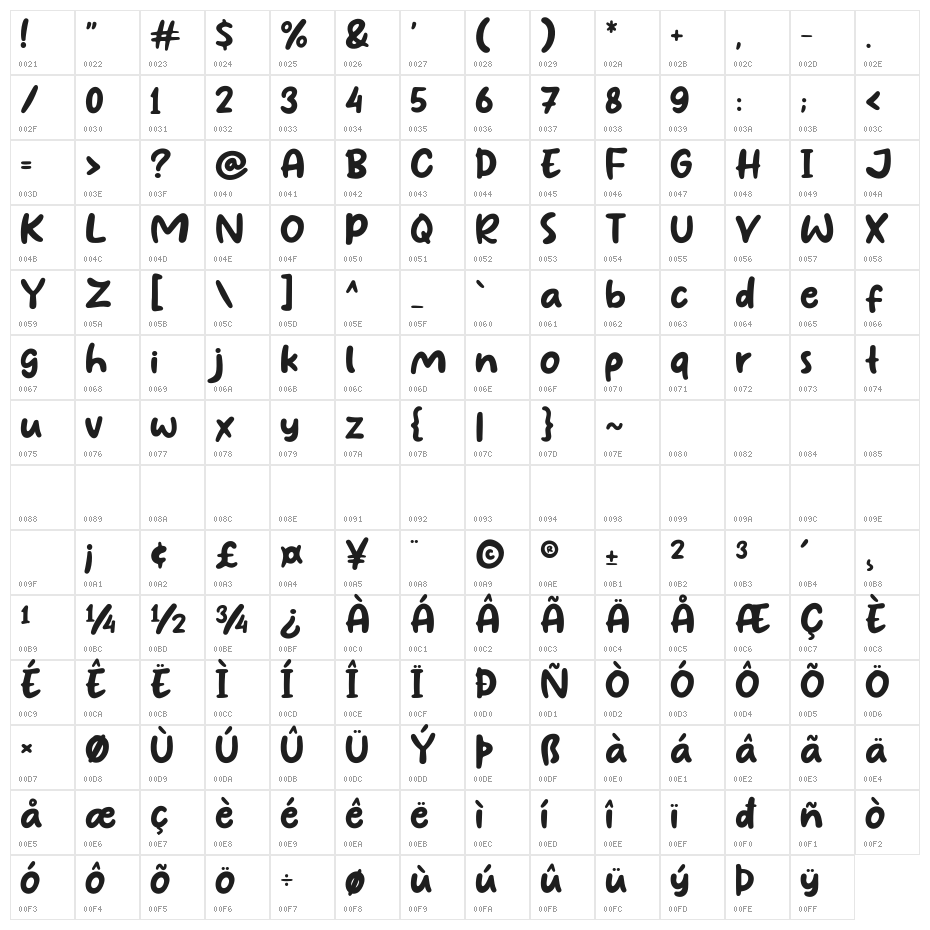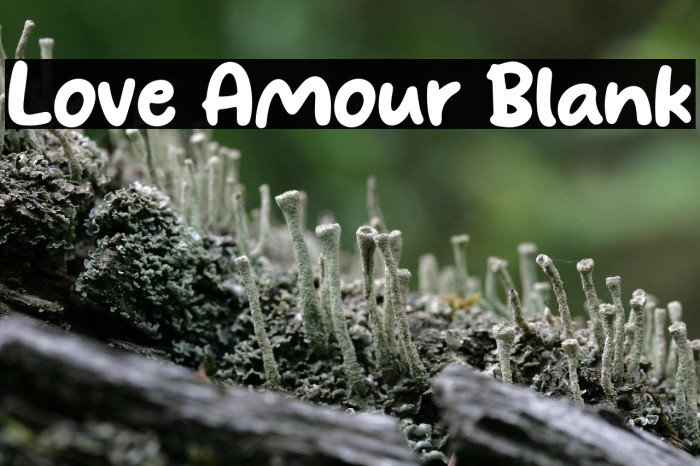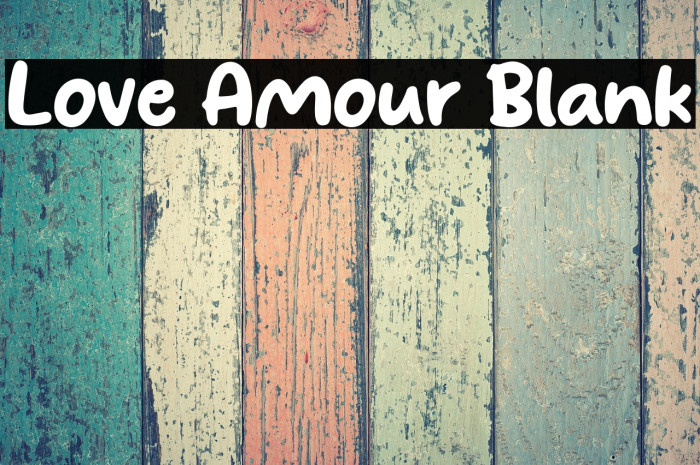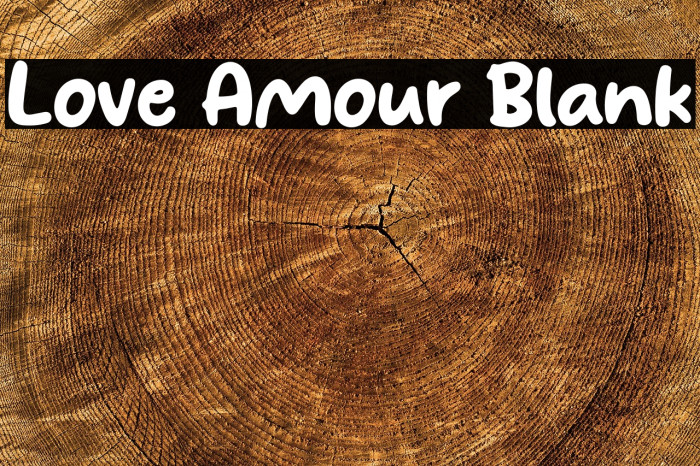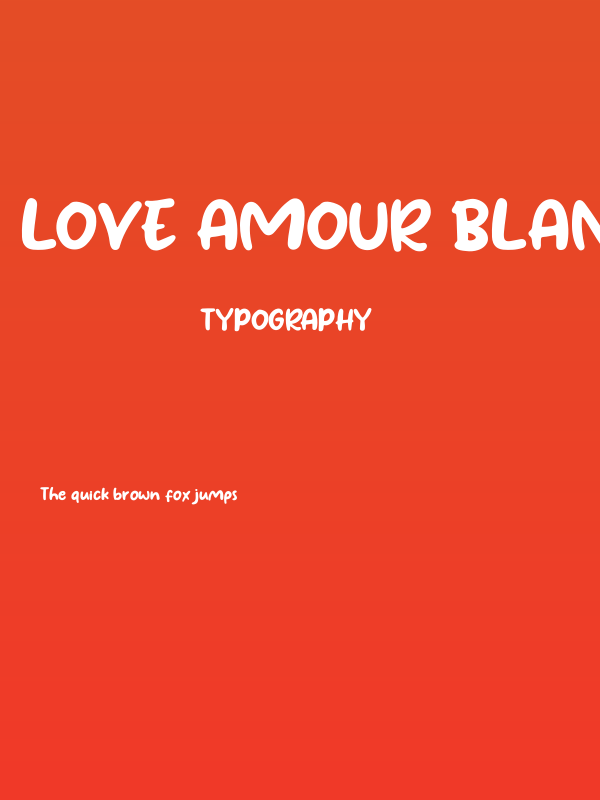
Love Amour Blank Font
Love Amour Blank Description
This playful and bold font features a handwritten style with rounded edges and a casual, friendly appearance. The characters are thick and slightly irregular, giving them a whimsical and approachable feel. The uppercase and lowercase letters maintain a consistent style, with a slight slant that adds to the informal nature of the font. The numerals are equally bold and rounded, ensuring readability while maintaining the overall playful aesthetic. Special characters are included, matching the style of the letters and numbers, making this font versatile for various uses.
| Proposed Projects | Ideal for children's books, playful branding, greeting cards, and informal invitations. |